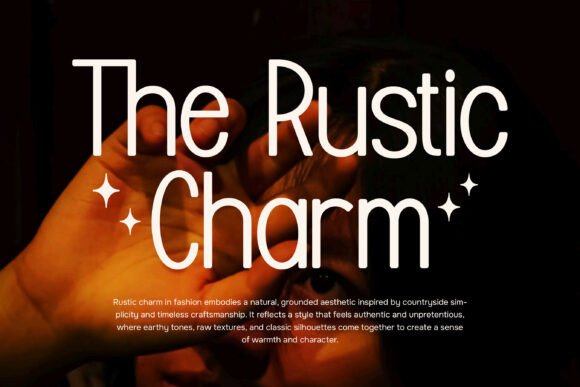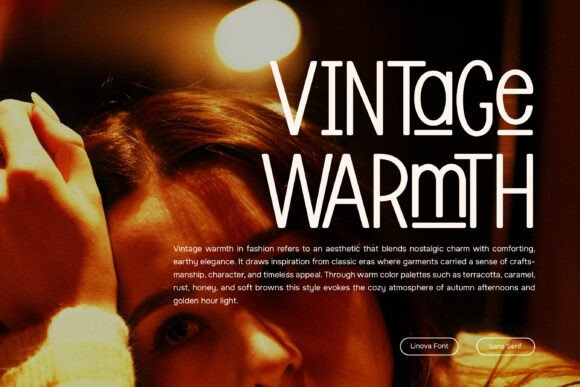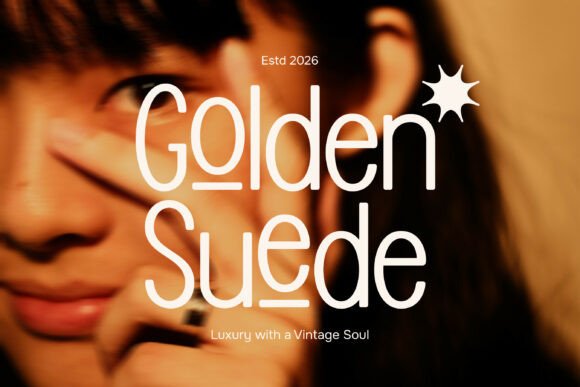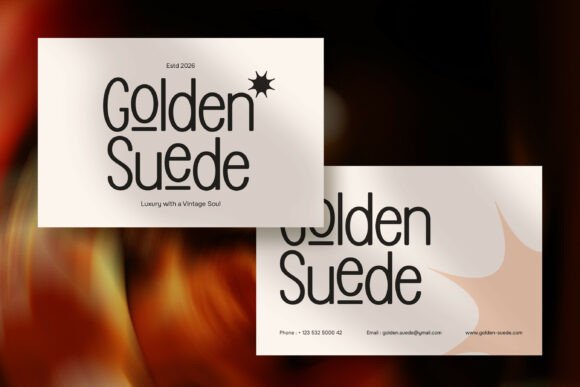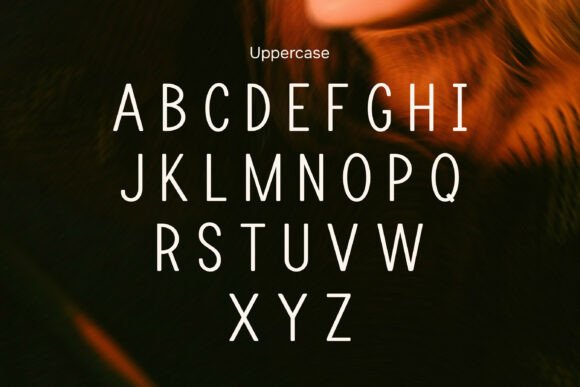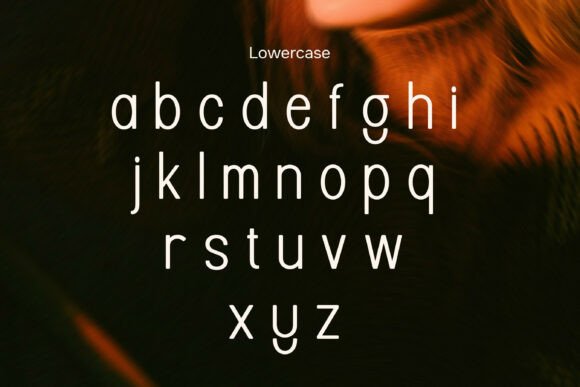
Introduction to Linova Font
As designers, we’ve all been there – staring at a blank canvas, waiting for that spark of inspiration to strike. The perfect font can make all the difference, elevating a creative project from bland to grand. For many, that spark has been ignited by the sleek lines and clean design of the Linova Font.
With its refined simplicity, Linova Font delivers a fresh and modern aesthetic that feels both functional and visually appealing. Whether you’re working on a high-quality logo, a website with a transparent background, or a brochure that demands attention, Linova Font is the perfect design resource to have in your toolkit. And the best part? It’s available for free download, making it an invaluable asset for designers of all levels.
Key Features of Linova Font
- High-quality design suitable for creative projects with a transparent background, making it easy to overlay on images.
- Supports a wide range of languages, making it a versatile font for global creative projects.
- Features a clean and modern design, perfect for branding, logos, and other visual identity elements.
- Includes a range of weights and styles, allowing for flexibility in typography and design.
Honest Review: Linova Font
As a designer, I’m always on the lookout for high-quality design resources that can elevate my creative projects. Recently, I stumbled upon the Linova Font, and I’m excited to share my honest review with you.
- ✨ Clean and Modern Design: The Linova Font has a sleek and sophisticated look that’s perfect for modern design projects.
- ✨ High-Quality Typography: The font is highly legible, even at small sizes, making it ideal for body text or headings.
- ⚠️ Limited Font Weights: While the font is clean and modern, it’s only available in a limited number of font weights, which might limit its versatility.
- ⚠️ No Transparent Background Option: If you’re looking for a font with a transparent background, you might be disappointed.
Overall, I’m impressed with the Linova Font, and I think it’s a great addition to any designer’s toolkit. While it has some limitations, its clean design and high-quality typography make it a valuable resource for creative projects. Whether you’re working on a logo, brochure, or website, the Linova Font is definitely worth considering.
Linova Font
The Linova Font is a high-quality, free download design resource perfect for any creative project. It features a transparent background, making it easy to use in various design applications.
The Linova Font is ideal for creating logos, branding materials, and marketing materials. It’s also great for use in presentations, reports, and other business documents.
Tips for Getting the Most Out of Linova Font
Use the Linova Font in combination with other high-quality design resources to create a cohesive and professional design. Experiment with different font sizes, colors, and styles to find the perfect look for your project.